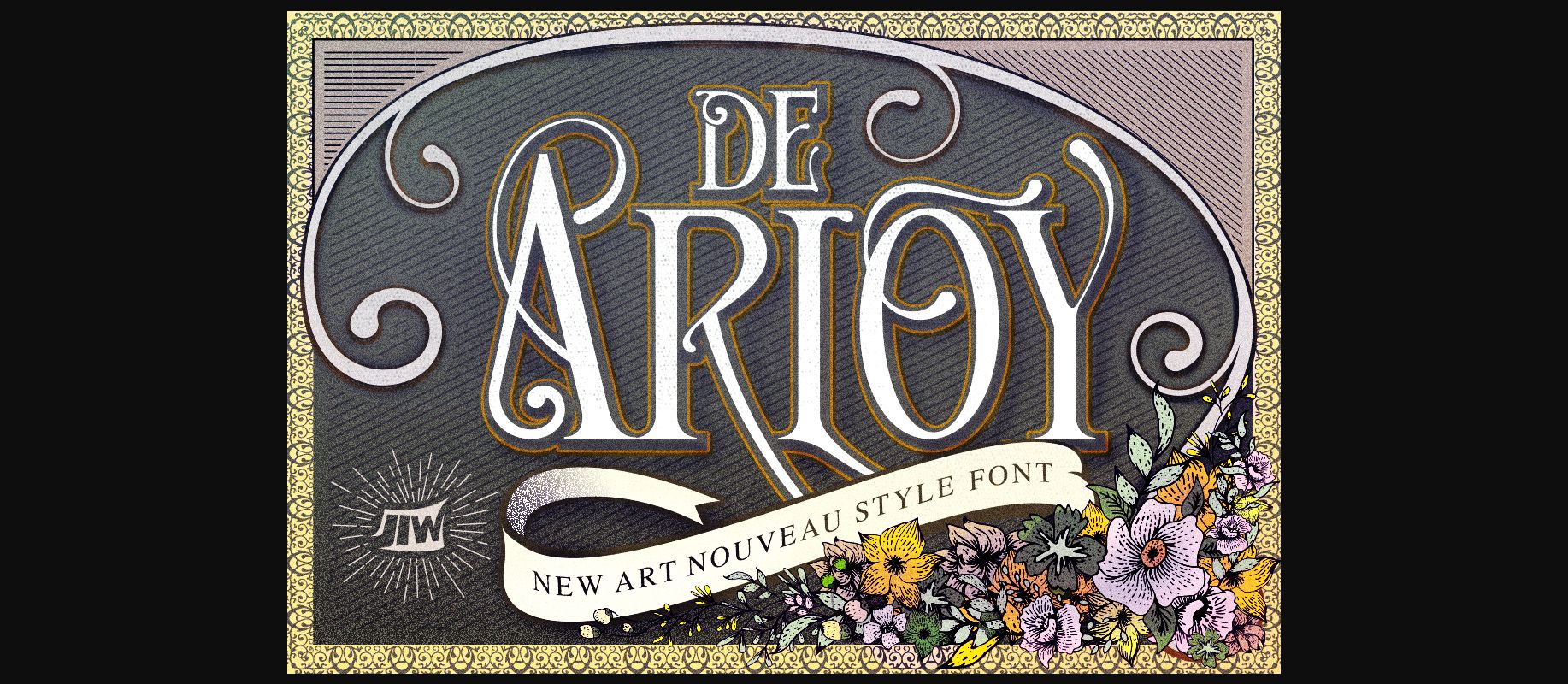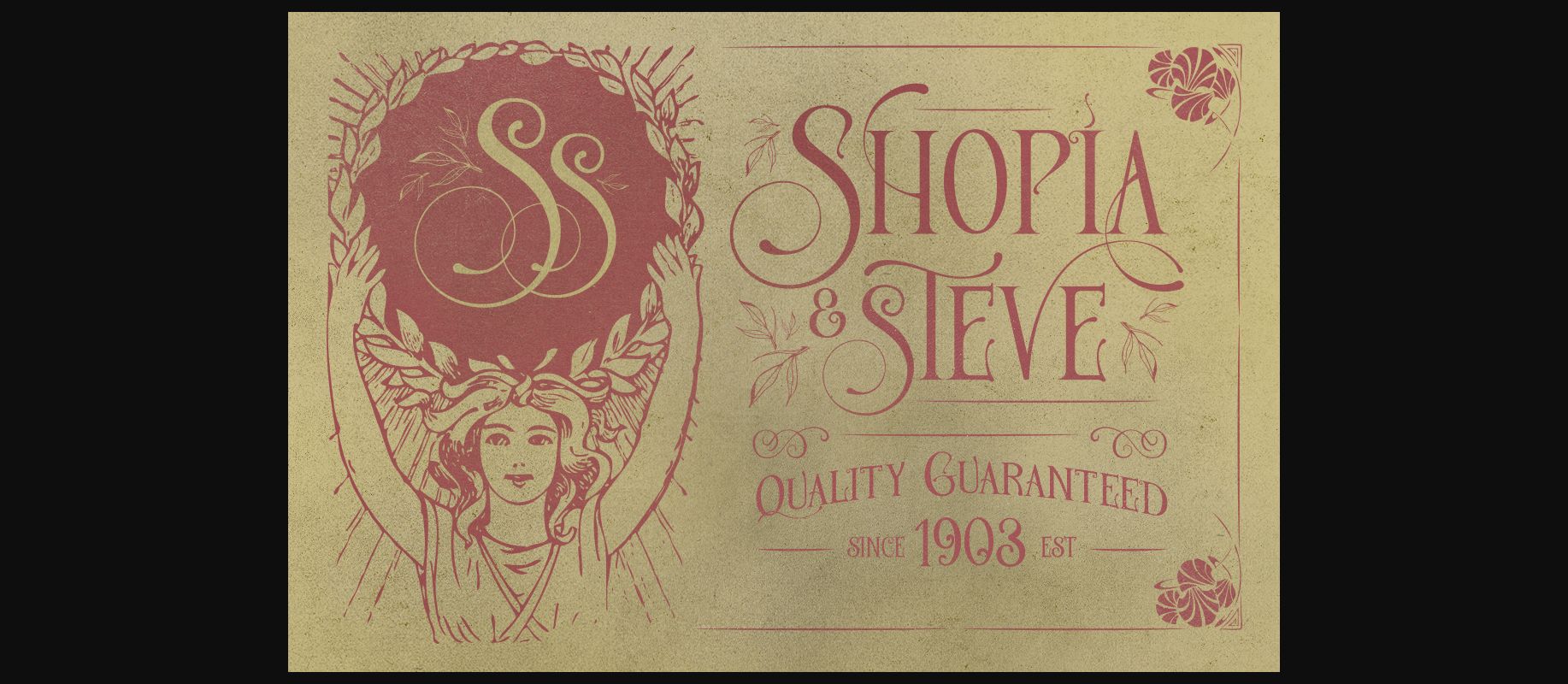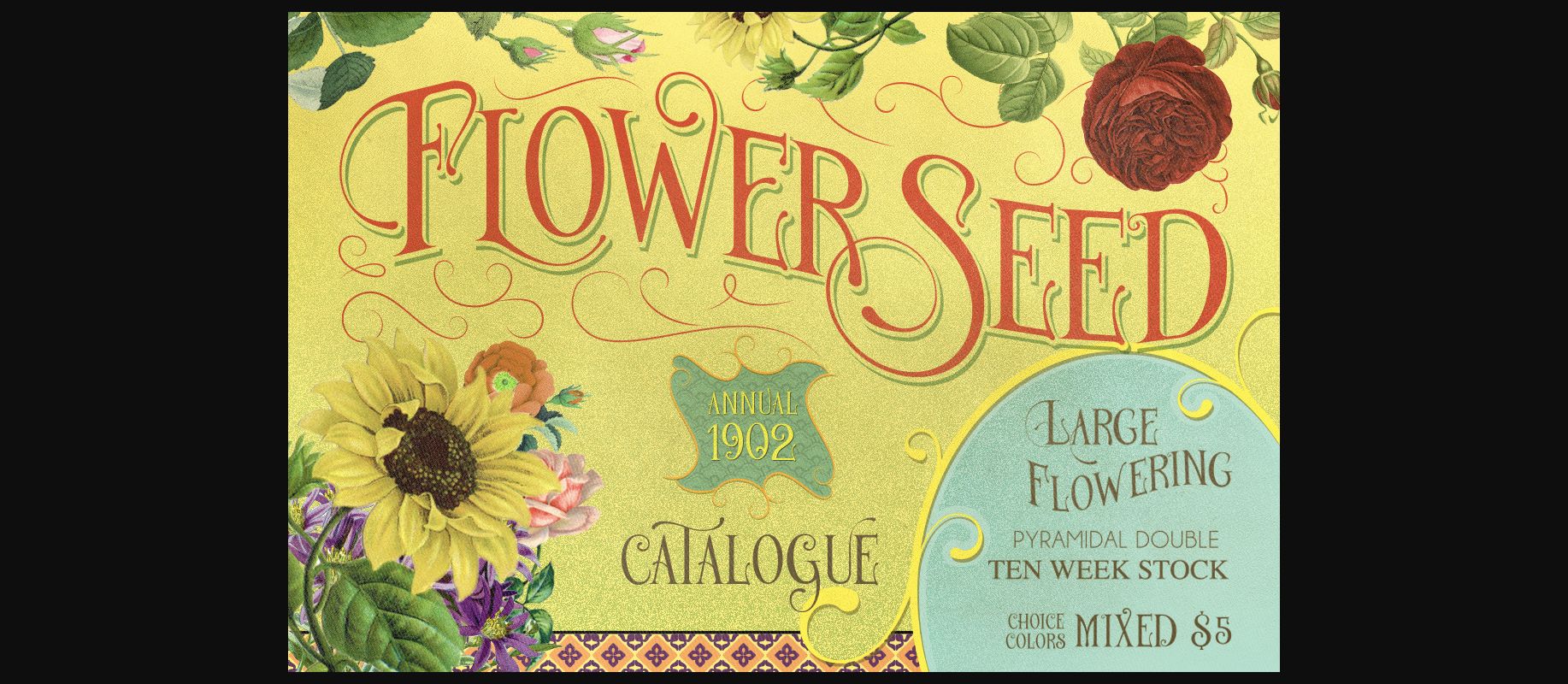
About De Arloy Font
De Arloy is a gorgeous typeface inspired by art nouveau, a style marked by the years from 1890-1910 (turn of the decade). Detailed and ornamental, De Arloy encompasses the spirit of that particular and wondrous time in the art world.